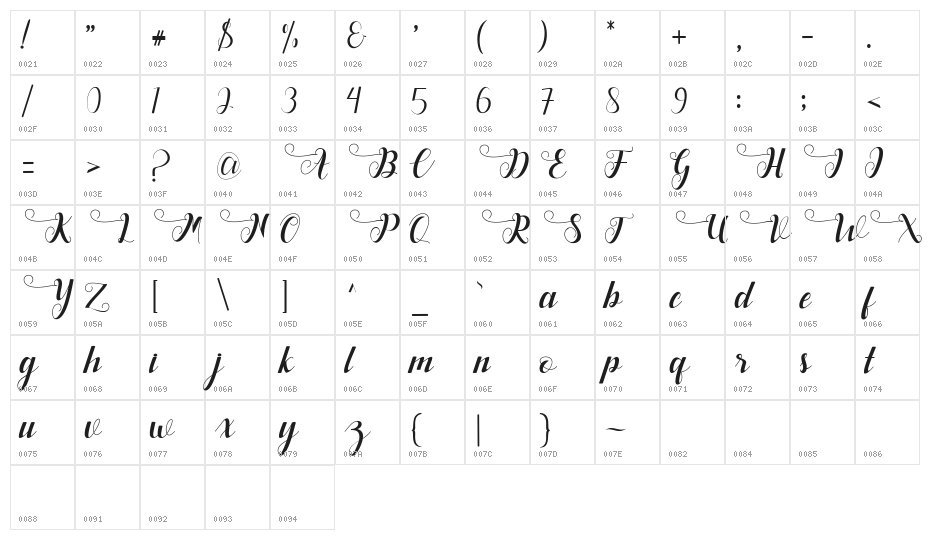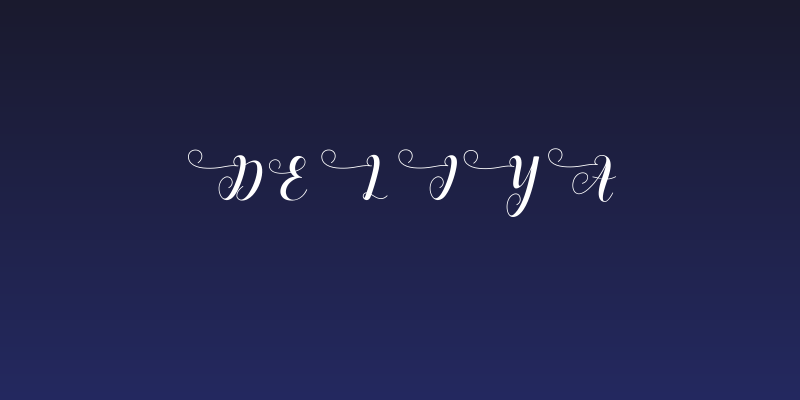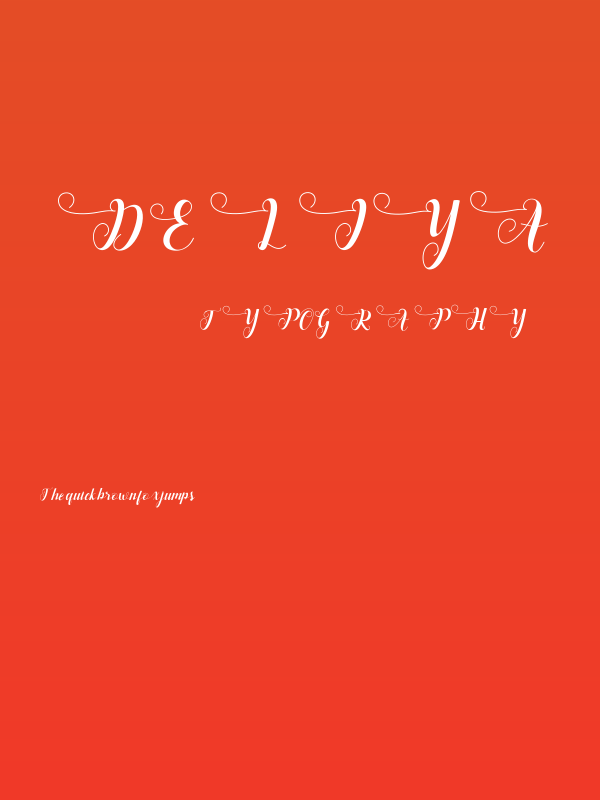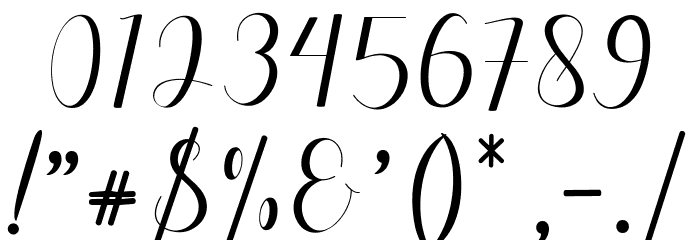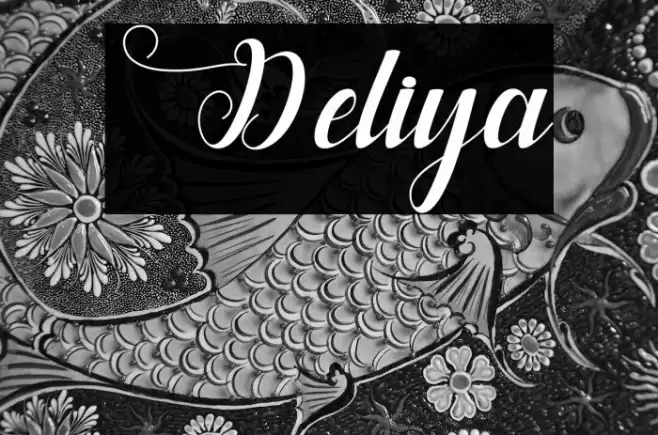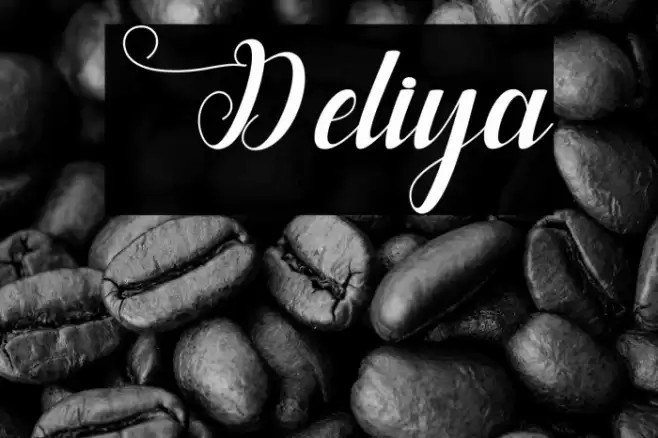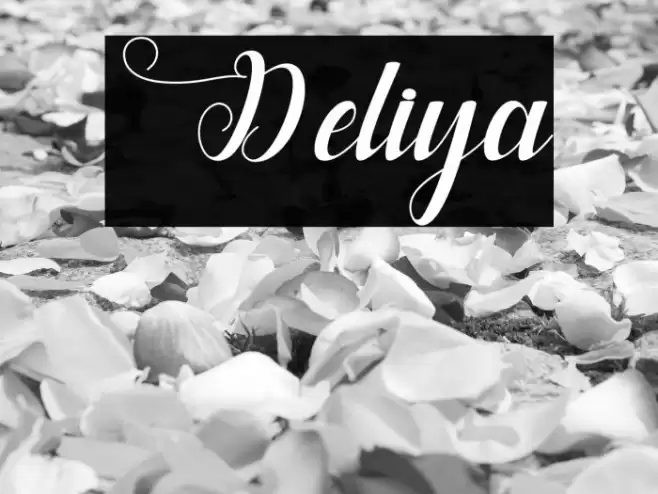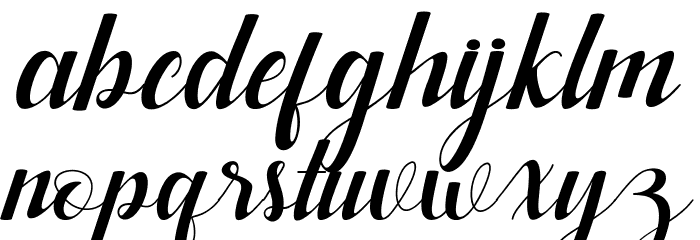
Deliya Font
Deliya Description
This font exudes elegance and sophistication with its flowing script style. The uppercase letters are adorned with delicate swashes, adding a touch of flair and grace. The lowercase letters maintain a smooth, cursive flow, making it ideal for creating a sense of movement and fluidity. The numerals are stylishly integrated, maintaining the overall aesthetic of the font. Special characters are designed with the same attention to detail, ensuring consistency throughout. This font is perfect for projects that require a touch of elegance and class, such as wedding invitations, luxury branding, or high-end product packaging.
| Proposed Projects | Wedding invitations, luxury branding, high-end product packaging. |